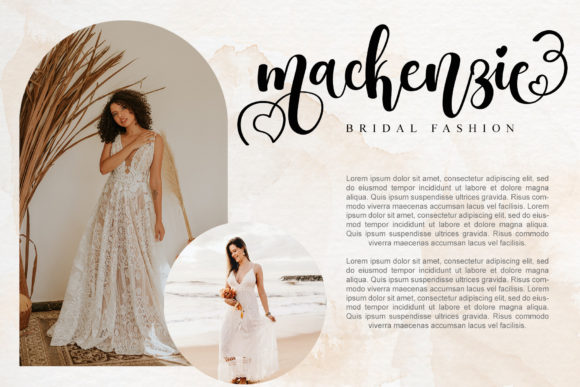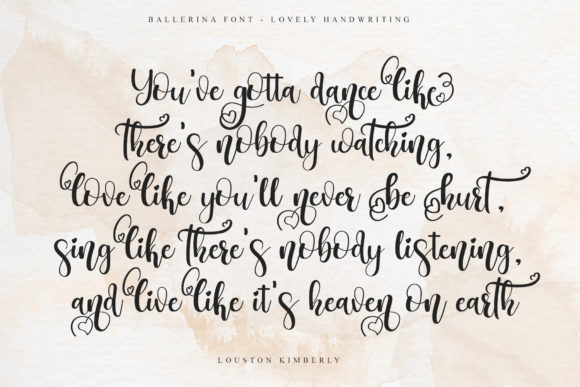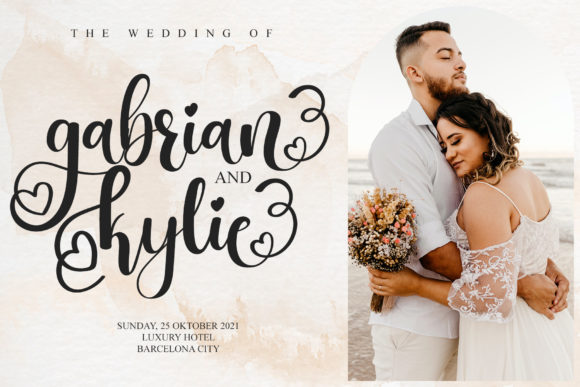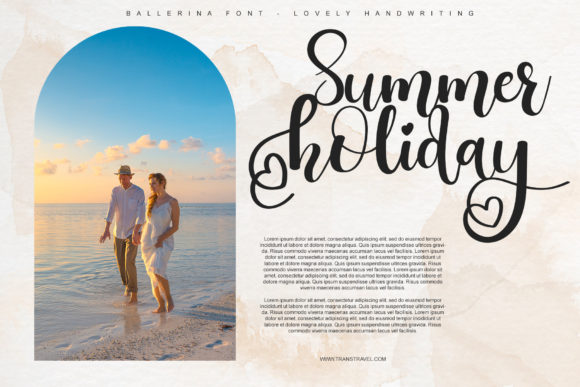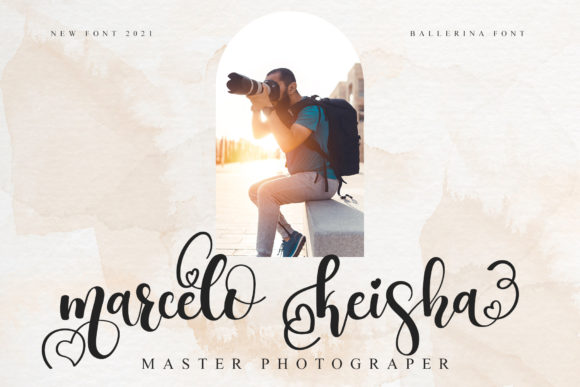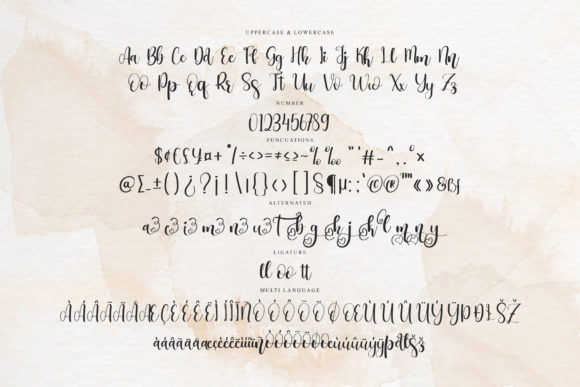
Ballerina Font: Add a Touch of Elegance to Your Design Projects
Are you looking for a font that exudes luxury, romance, and sweetness? Look no further than the Ballerina Font! This stunning calligraphy typeface is perfect for designers and crafters who want to add a touch of elegance to their design projects. In this article, we’ll dive into the features and benefits of the Ballerina Font, and explore how it can elevate your designs to the next level.
What is Ballerina Font?
Ballerina Font is a romantic and sweet calligraphy typeface that is designed to make your designs dance with elegance. The characters in this font are carefully crafted to dance along the baseline, creating a sense of movement and fluidity. This font is perfect for designs that require a touch of luxury, sophistication, and whimsy.
Key Features of Ballerina Font
• Romantic and Sweet: The Ballerina Font is designed to evoke a sense of romance and sweetness. The characters are carefully crafted to create a sense of movement and fluidity, making it perfect for designs that require a touch of elegance.
• Luxury Spark: The Ballerina Font is designed to add a luxury spark to any design project. Whether you’re working on a branding project, a wedding invitation, or a packaging design, this font is sure to elevate your design to the next level.
Benefits of Using Ballerina Font
So, why should you use the Ballerina Font in your design projects? Here are just a few benefits of using this stunning font:
• Elegance and Sophistication: The Ballerina Font adds a touch of elegance and sophistication to any design project. It’s perfect for designers who want to create luxurious and high-end designs.
• Versatility: The Ballerina Font is versatile and can be used in a variety of design applications, from branding and advertising to packaging and wedding invitations.
Design Ideas Using Ballerina Font
So, how can you use the Ballerina Font in your design projects? Here are a few design ideas to get you started:
• Wedding Invitations: The Ballerina Font is perfect for wedding invitations, as it adds a touch of romance and elegance to the design.
• Branding and Packaging: The Ballerina Font is perfect for luxury brands that want to add a touch of sophistication to their branding and packaging designs.
• Advertising: The Ballerina Font is perfect for advertising designs that require a touch of elegance and sophistication.
In conclusion, the Ballerina Font is a stunning calligraphy typeface that is perfect for designers and crafters who want to add a touch of elegance to their design projects. With its PUA encoding, romantic and sweet design, and luxury spark, this font is sure to elevate your designs to the next level. Whether you’re working on a wedding invitation, a branding project, or a packaging design, the Ballerina Font is a great choice.